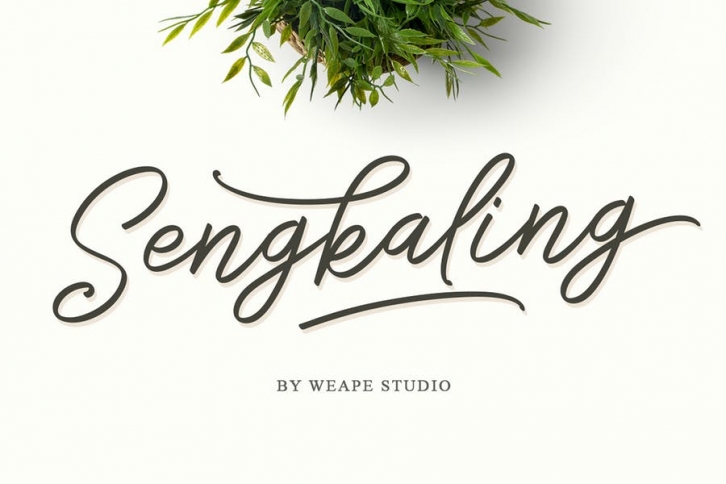
Sengkaling Script FONT Download
Introducing the new script font called Sengkaling Script. Each letter is made with various alternatives, thus making it more varied. With unique monoline fast hand sweep style for your daily and project needs ex: logo, fashion, apparel, photography, watermark, quotes, blog header, poster, wedding, invitation, stationery, branding, letter, etc.
And Sengkaling Script comes with several stylistics, ligatures, swashes and multilangual support.